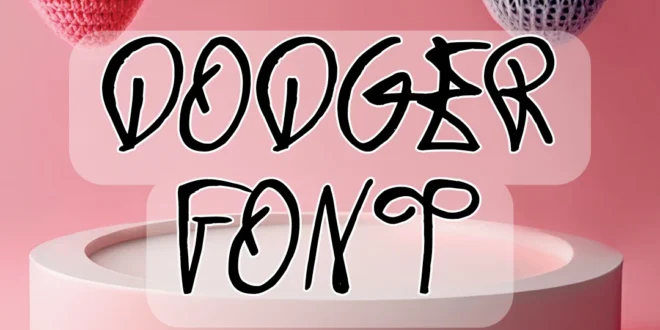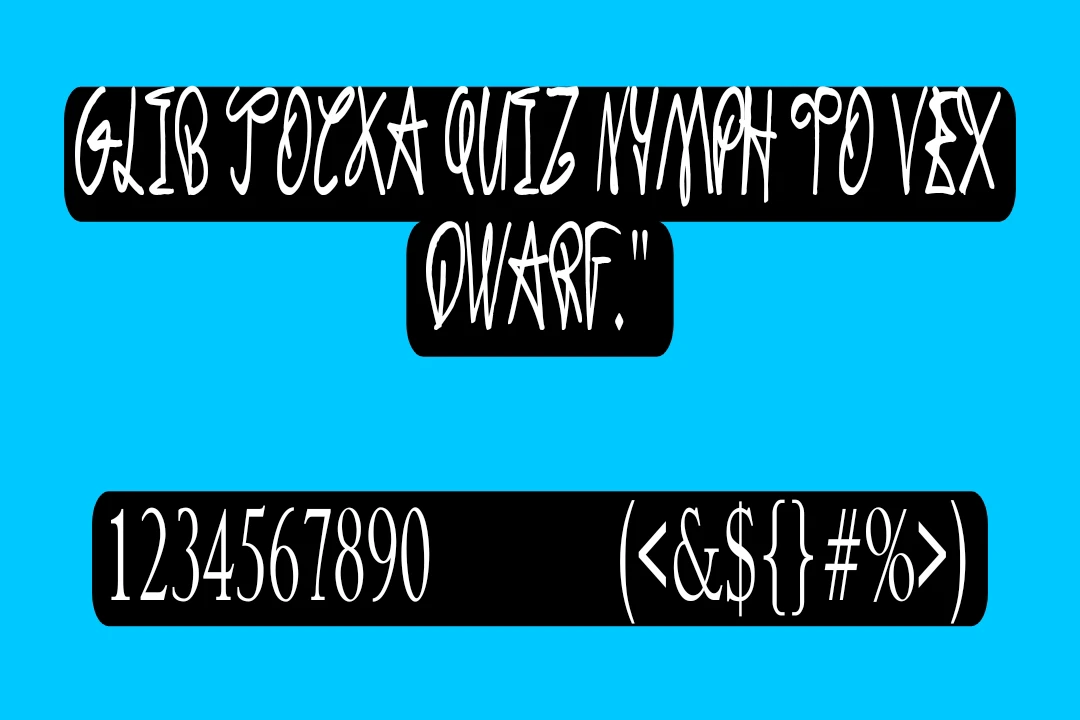
Dodger Gear Font
Dodger Gear Font is a bold and dynamic typeface inspired by sports branding, particularly designed for high-impact and attention-grabbing designs.Dodger Gear Font Free Download
This font is often associated with sports logos, merchandise, and apparel due to its strong, athletic aesthetic. It was crafted by Michael Hageman, a designer known for creating fonts that are both modern and highly readable.
This texture includes various weights, primarily focusing on a bold and heavy design that stands out in promotional materials or branding contexts.
It supports a wide range of characters, including uppercase and lowercase letters, numbers, and a selection of punctuation marks, making it a versatile choice for creating logos, sports-themed graphics, posters, and team identities.
This font was crafted by a skilled typographic designer the Los Angeles, drawing inspiration from the rich visual history of the Los Angeles Dodgers franchise.
While the specific designers involved may not be publicly disclosed, their work has significantly impacted the representation of the team’s identity.